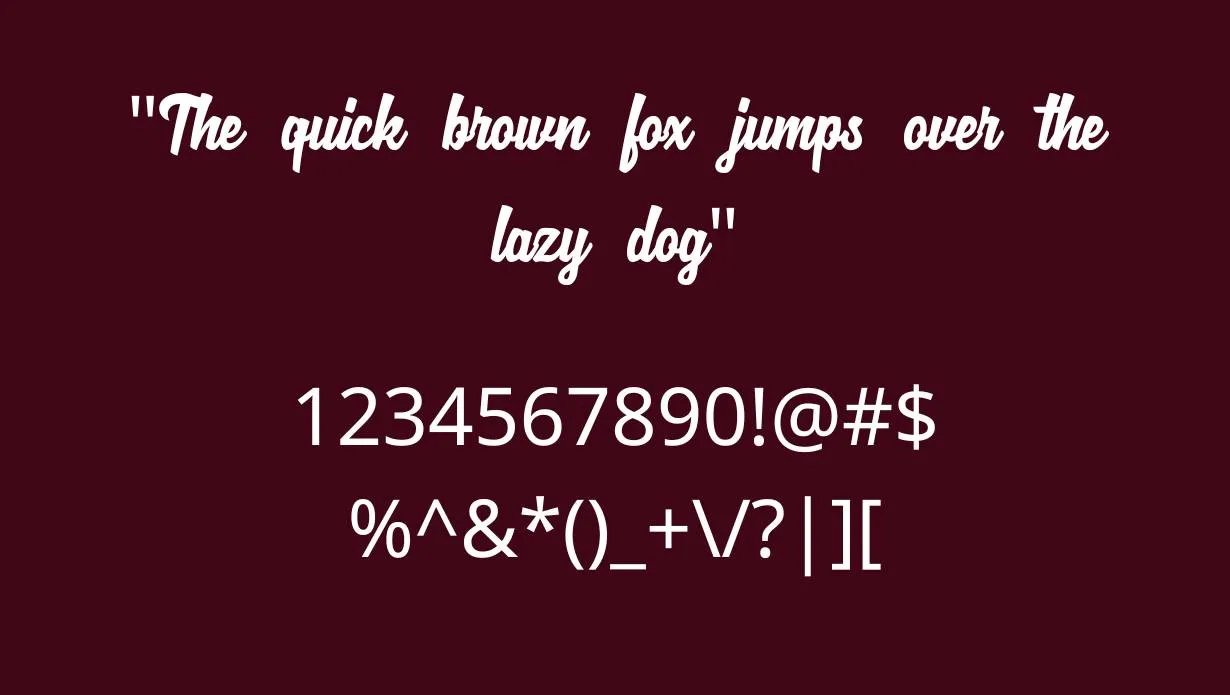
Loguetown font navigates the seas of creativity, infusing a maritime charm into your words. Ideal for projects with maritime themes, adventure-related designs, and anything that captures the spirit of the open sea, Loguetown charts the course for a nautical journey.
Each character becomes a sailor’s tale, weaving a narrative that carries the essence of oceanic exploration.